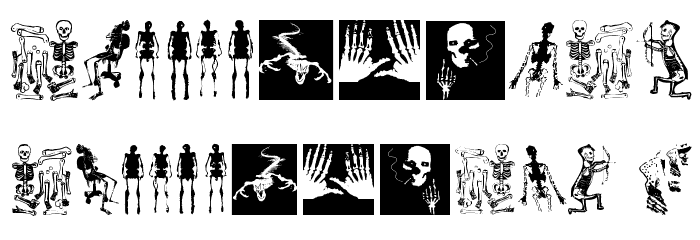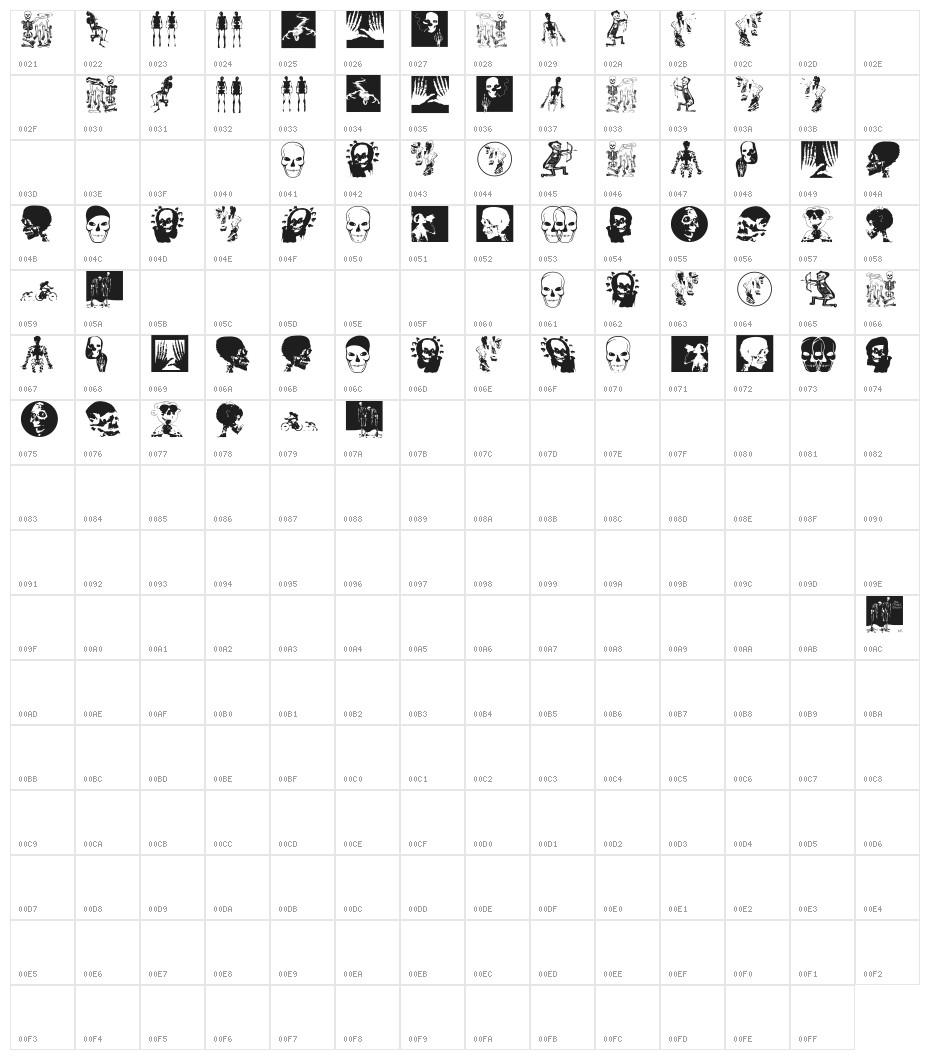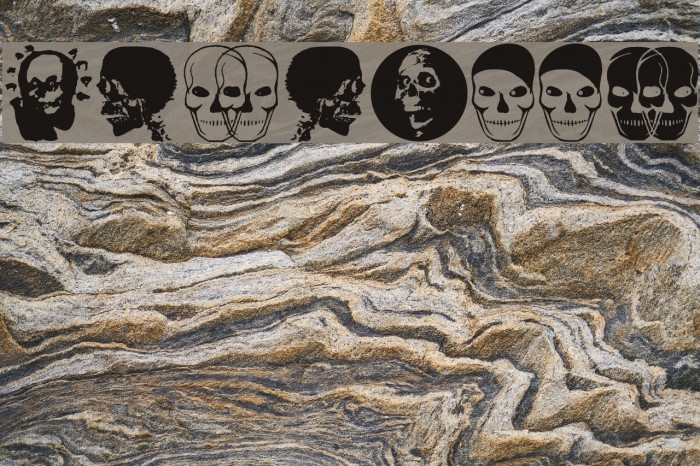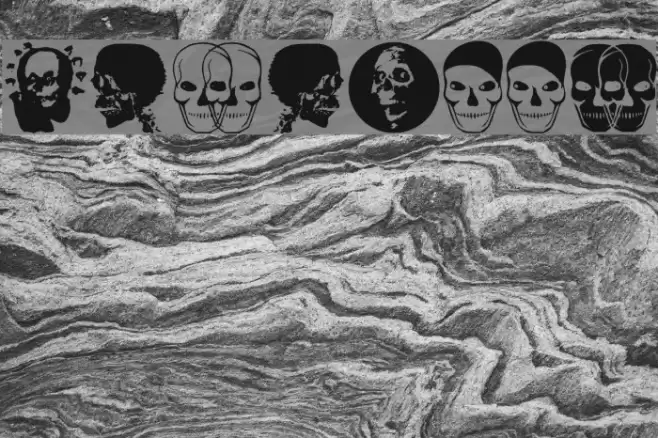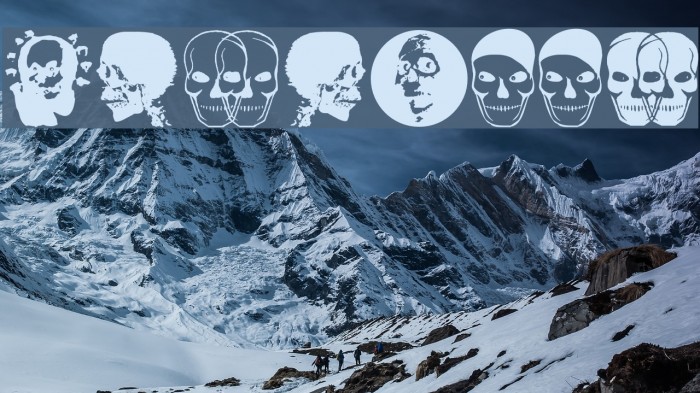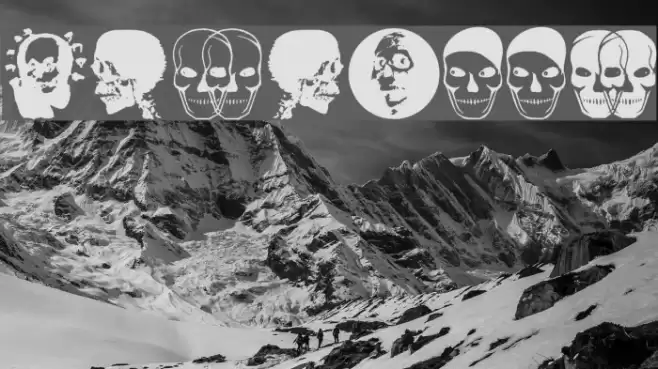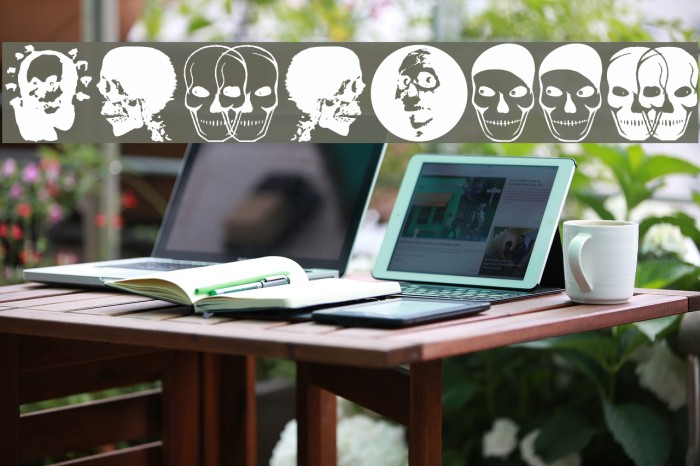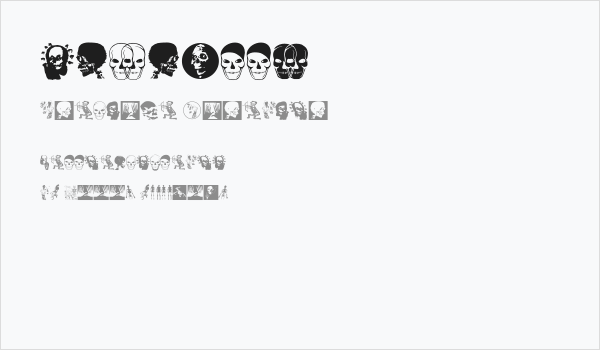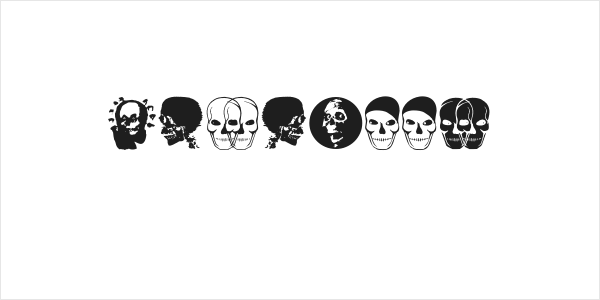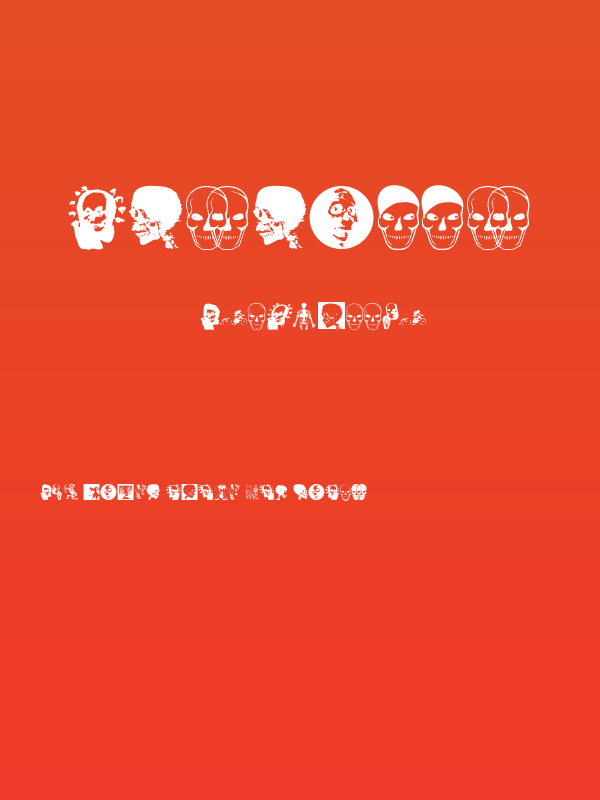
MKSkulls Font
MKSkulls Description
A highly decorative display font featuring bold, high-contrast illustrations of skulls, skeletons, bones, and x-ray imagery in both positive and negative space. Each character is represented by a unique, detailed graphic rather than traditional letterforms, creating a visually striking and thematic alphabet.
| Overall Style | Decorative, Macabre, Thematic |
| Use Case | Headlines, Posters, Logos, Themed Graphics |
| Proposed Projects | Halloween posters, horror-themed event flyers, album covers, party invitations, comic titles, and merchandise for spooky or macabre themes. |